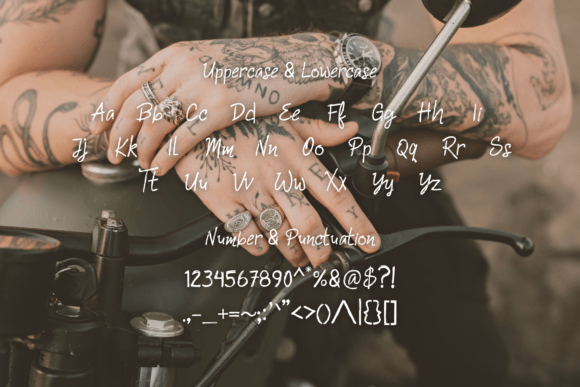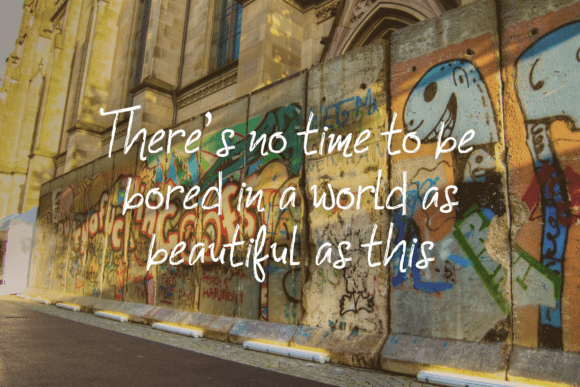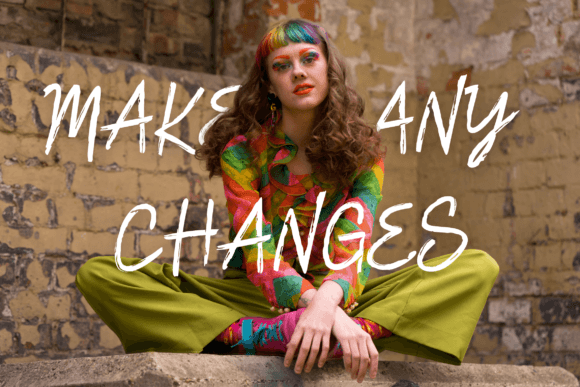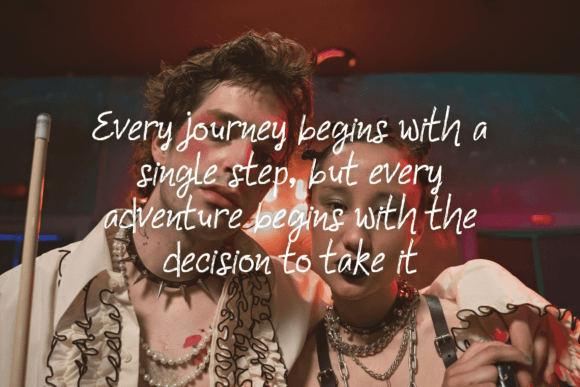
Introduction to Friday Nighty Font
There’s nothing quite like the thrill of staring at a blank page, wondering where to start your next creative project. The cursor blinks impatiently, as your mind begins to wander through ideas and possibilities. But, what if you had the perfect font to set the tone for your masterpiece? Enter the Friday Nighty Font, a stylish script font that’s sure to elevate your design game.
As a designer, you know how crucial it is to have a high-quality design resource at your fingertips. The Friday Nighty Font fits the bill, with its modern letter design and approachable feel. Plus, its free download option makes it an accessible choice for designers of all levels. Whether you’re working on a personal project or a commercial design, this font is sure to bring a touch of sophistication and style to your work.
One of the standout features of the Friday Nighty Font is its transparent background, making it easy to layer and customize to your heart’s content. With its cool and modern vibe, this font is perfect for designers looking to add a little excitement to their next creative project.
Key Features of Friday Nighty Font
- High-quality design resource ideal for creative projects requiring a unique aesthetic.
- Features a transparent background, allowing for seamless integration with backgrounds and designs.
- Available in a single size, with a resolution of 300 DPI, making it suitable for print and digital applications.
- Unique characteristics include a distressed, grunge-inspired design, with subtle texture and imperfections.
- Perfect for designers and artists looking for a high-quality, free design resource to enhance their creative projects.
Honest Review: Friday Nighty Font
As a designer, I’m always on the lookout for unique and high-quality design resources to elevate my creative projects. Recently, I stumbled upon the Friday Nighty Font and was excited to give it a try.
Here are some of the things that I think work well:
- ✨ The font is incredibly versatile and can be used for a wide range of design applications, from logos to brochures.
- ✨ The font features a transparent background, which makes it easy to use on complex designs.
- ⚠️ The font is not suitable for body text, as it can be difficult to read in smaller sizes.
- ⚠️ The font is not as comprehensive as some other fonts, with a limited character set.
Overall, I think the Friday Nighty Font is a great design resource, but it’s not perfect. With some careful usage, it can add a unique touch to your creative projects.
How to Use Friday Nighty Font
For the most out of the Friday Nighty Font, experiment with different font sizes, colors, and styles to create visually appealing designs. You can also combine this font with other design elements, such as images and shapes, to add depth and interest to your creative project.
The Friday Nighty Font is perfect for a variety of creative projects, including social media graphics, blog posts, and marketing materials. Its high-quality design and transparent background make it an excellent choice for creating visually appealing designs that stand out from the crowd.
Q: Does the Friday Nighty Font have a transparent background?
Yes, the Friday Nighty Font features a transparent background, making it easy to combine with other design elements and backgrounds. This feature is especially useful for designers working on high-quality design projects that require a seamless integration of fonts and graphics.